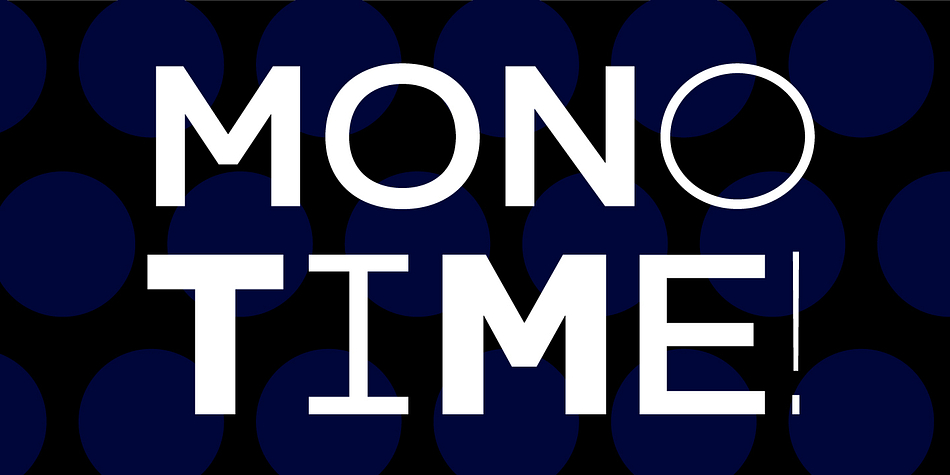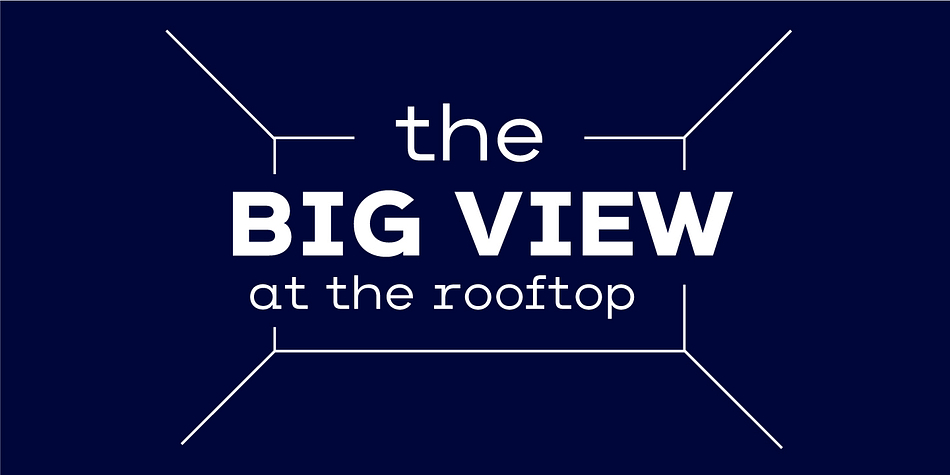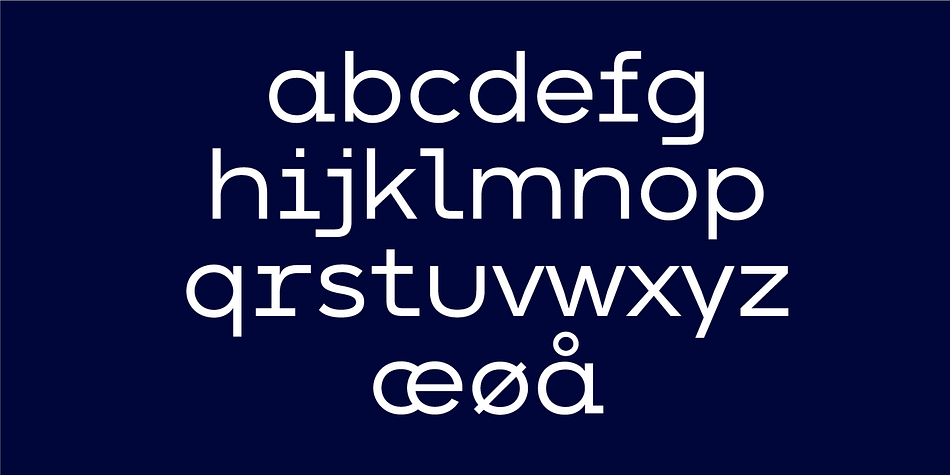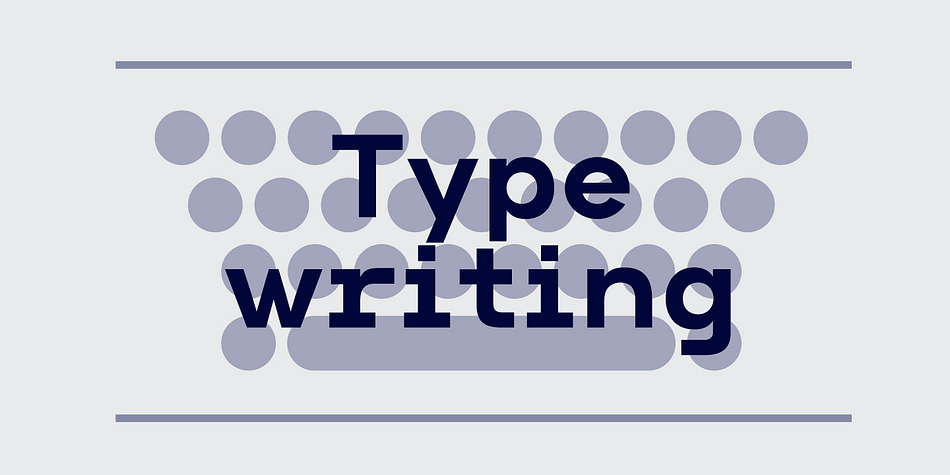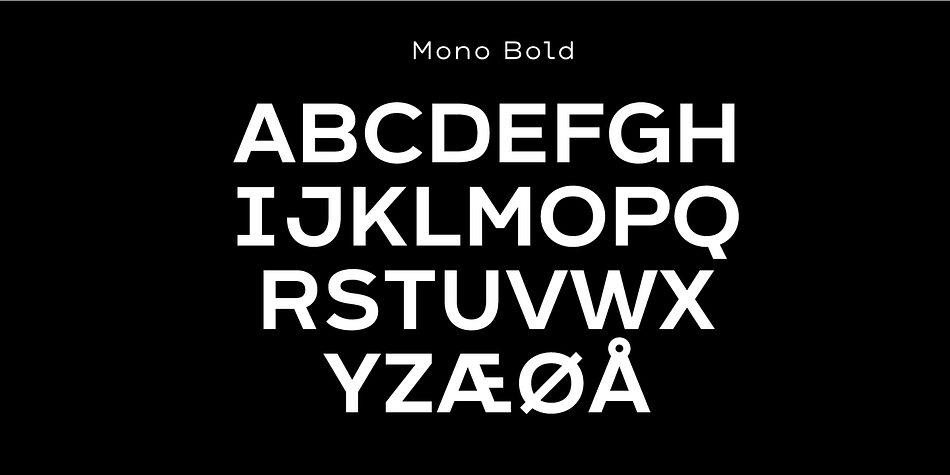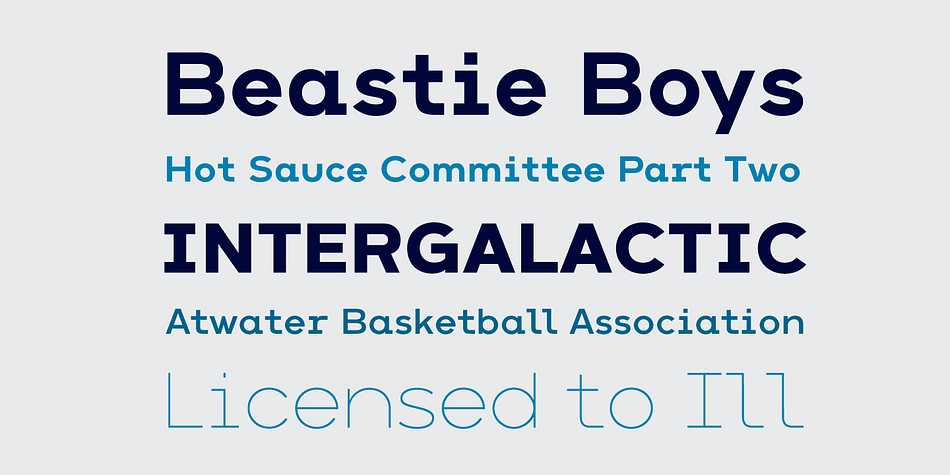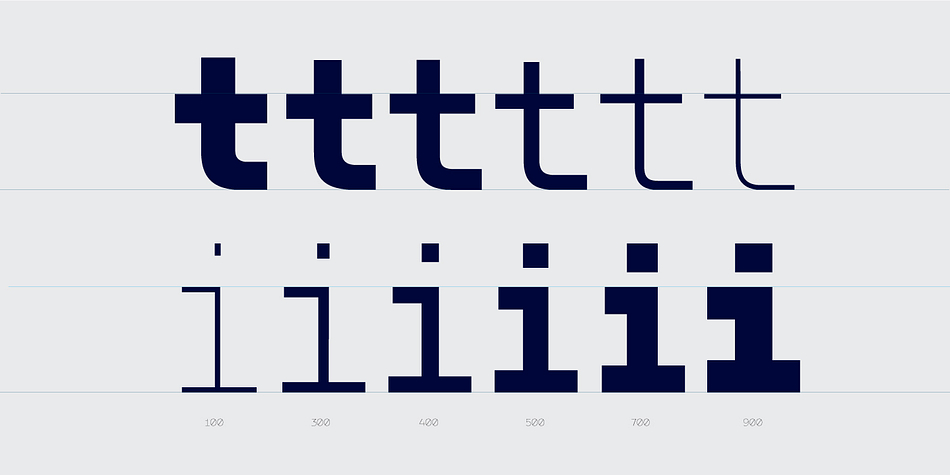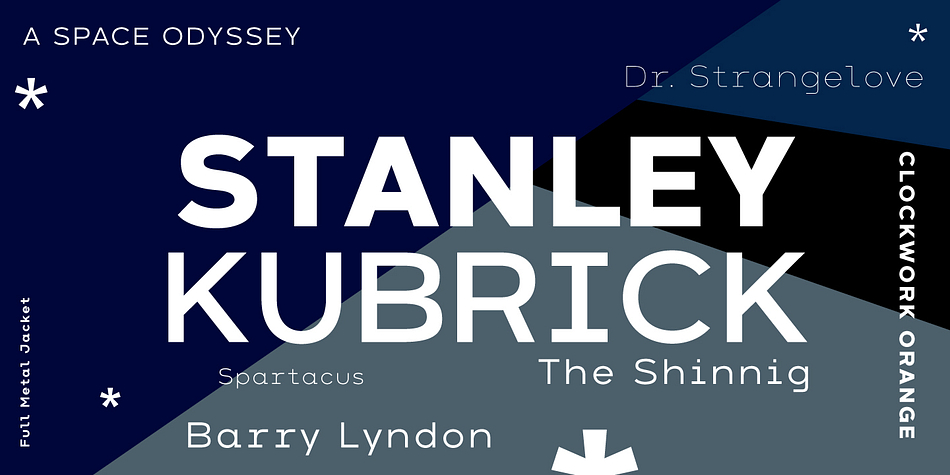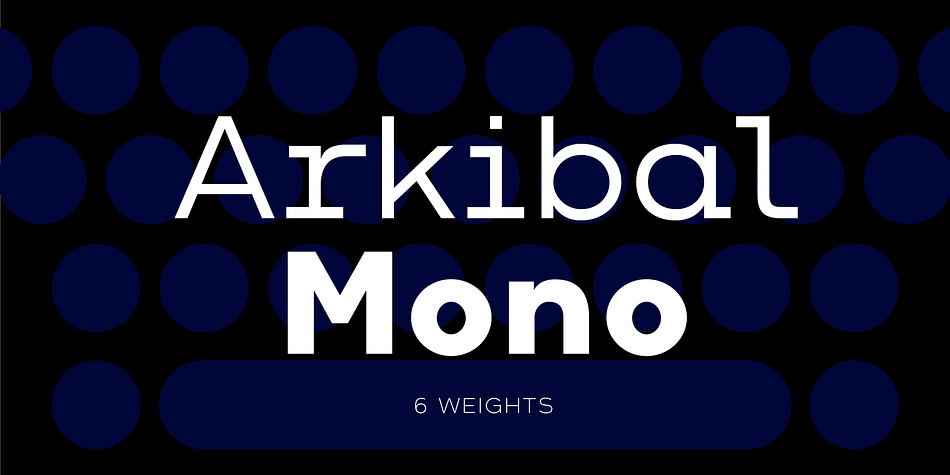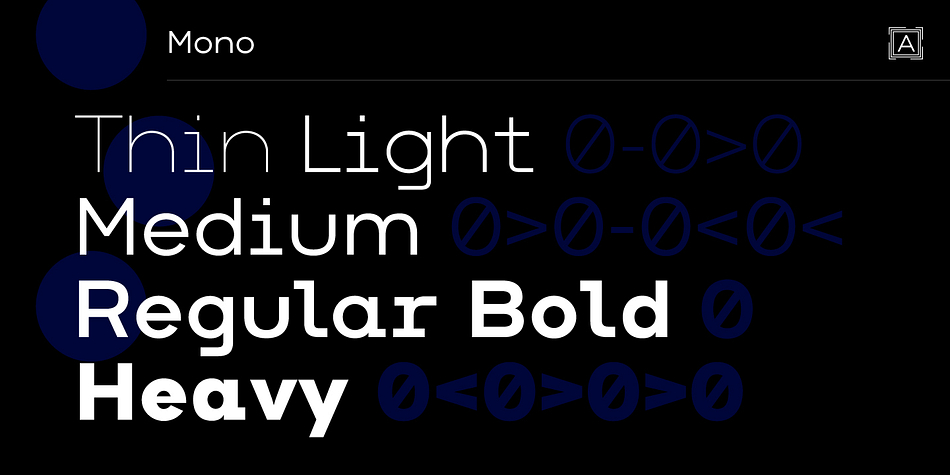
Designed by Jan-Christian Bruun, Arkibal Mono is a sans serif and typewriter font family. This typeface has six styles and was published by JC Design Studio.
The Mono version is a little different from Sans family, where the letters have a straight shape in the top bottom. The idea was to make a classic mono typed version with different selection of letters.
The inspiration comes from some old documents and store signs from my great-grandfather’s old gold listfactory from 1838. He delivered hits for many artists of that time, and various museums in Copenhagen. I priority increases to make a mixture of the classic letter with a modern lift. Seems it was fun to try to reproducesome of the old characters and make a new font. Uppercase ‘G’ was the first letter of the startingpoint. G stands for in danish ‘Guldramme’, which means ‘Goldframe’. Arkibal is coming from an almost old danish tradional name “Arkibald”, only without “d”.
Styles | Sans Serif, Typewriter |
Designer | Jan-Christian Bruun |